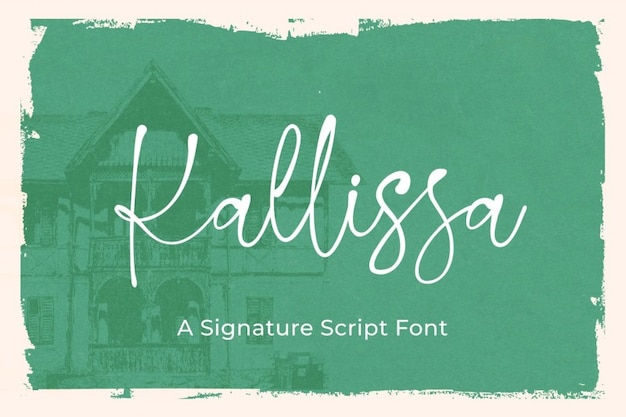
Kallissa Signature
Kallissa Signature Font
Kallissa Signature font is a handwritten gem, where every letter is a stroke of pretty perfection. It's as if each character was meticulously crafted with a touch of elegance and grace. Ideal for projects where you want to infuse a sense of refined beauty into your designs. Kallissa Signature is the font that effortlessly marries handwritten charm with a level of prettiness that's truly captivating. Your message becomes a delicate and graceful expression, leaving a lasting impression of beauty and sophistication.